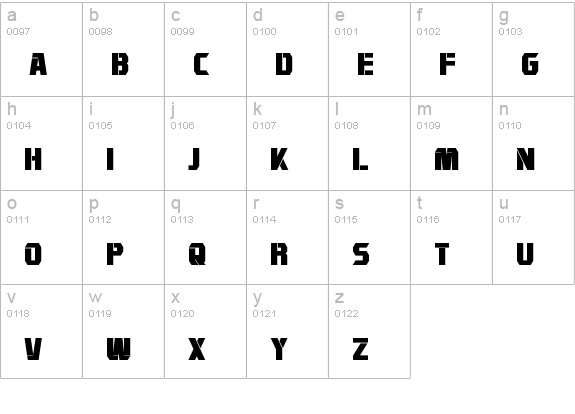
Combatron Bold Font Details
Combatron Bold is a strong, high-contrast variant in the Combatron typeface family \xE2\x80\x94 well suited to headlines, attention-grabbing titles, and strong calls-to-action.
Combatron Bold is a captivating and dynamic font that exudes power and strength. With its bold and commanding presence, this font is perfect for any design project that requires a strong and impactful appearance. The bold and striking letterforms of Combatron Bold are expertly crafted to catch the eye and leave a lasting impression. Each character is meticulously designed to convey a sense of power and intensity, making it ideal for headlines, logos, and branding materials. What sets Combatron Bold apart is not only its visually stunning design, but also its availability as a free font. That's right, Combatron Bold can be freely downloaded at FontsMarket.com, allowing designers and creatives to access this remarkable font without any cost. Whether you're working on a poster, website, or any other project that demands attention, Combatron Bold is the perfect choice. Its strong and commanding presence will make your designs stand out, leaving a lasting impact on your audience. So, why wait? Download Combatron Bold today from FontsMarket.com and unleash the power of this incredible font in your next design project. With its striking appearance and free availability, Combatron Bold is the perfect tool for any designer looking to make a bold statement.